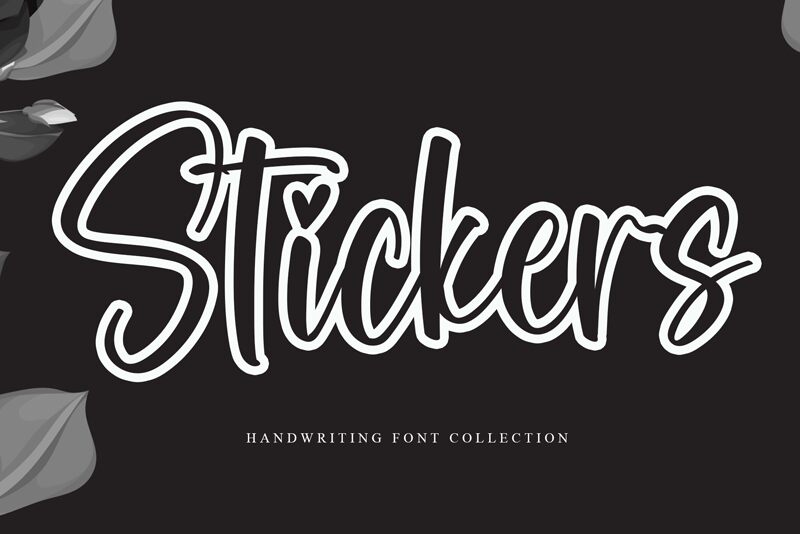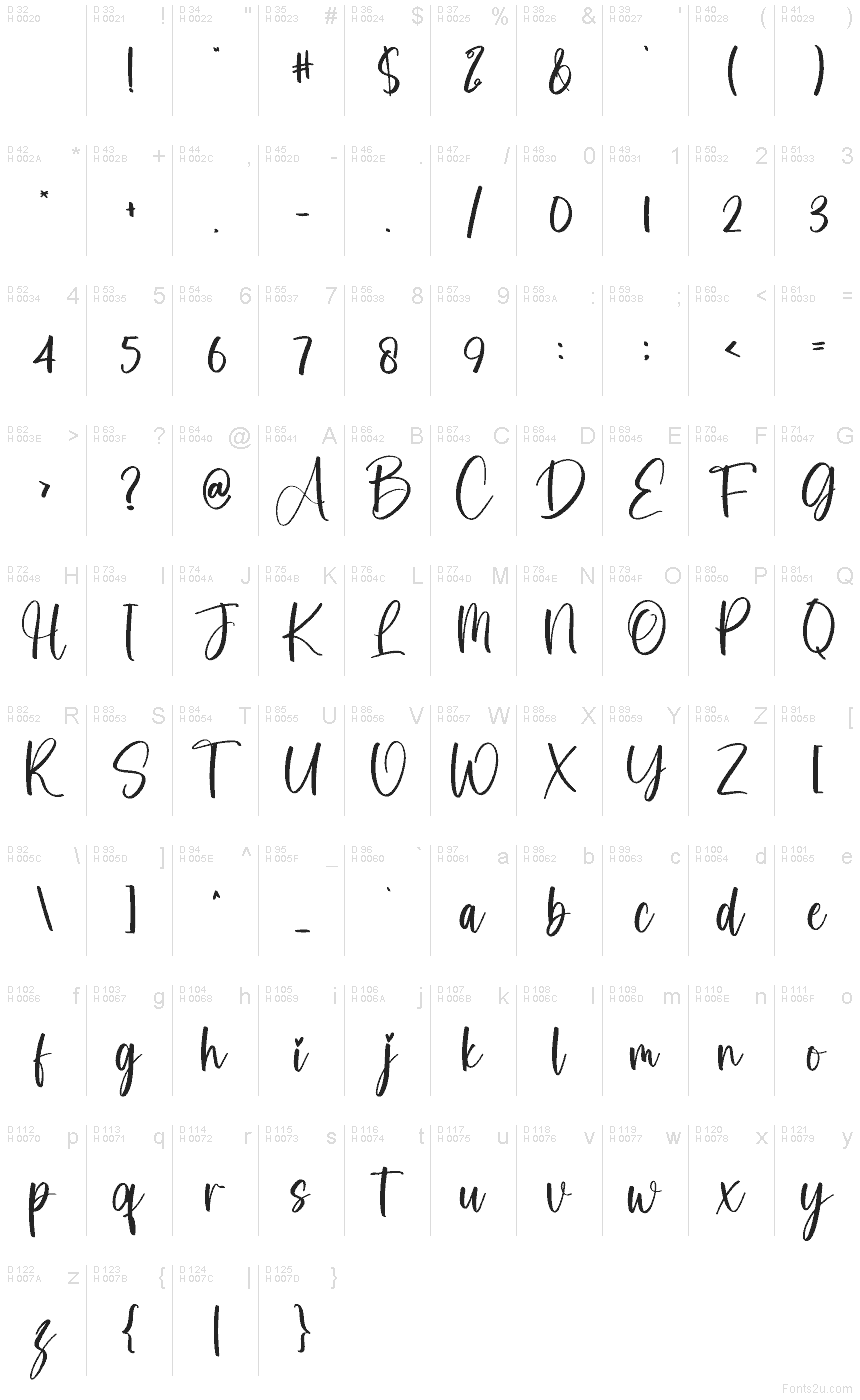
Stickers
Stickers font by creatype designer is a free handwritten script typeface with a bubbly, brush-pen flow that feels ready-made for cute, collectible graphics. Tall, looping letters, smooth strokes, and a playful heart detail give it that “pulled from a sticker sheet” charm—bold enough to read at a glance, but soft around the edges so it still feels warm and personal. It has an inky, slightly casual rhythm that makes text look fun and friendly without becoming messy.